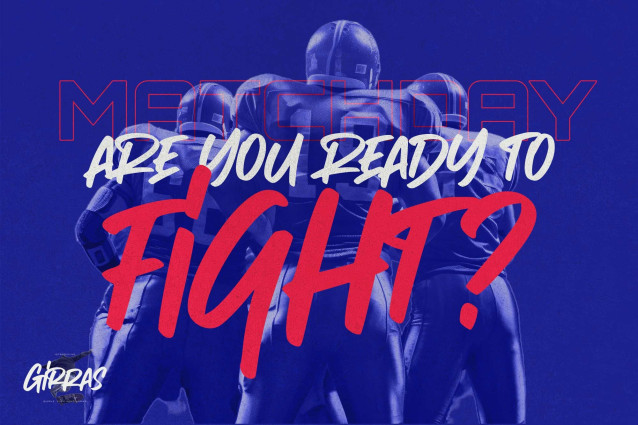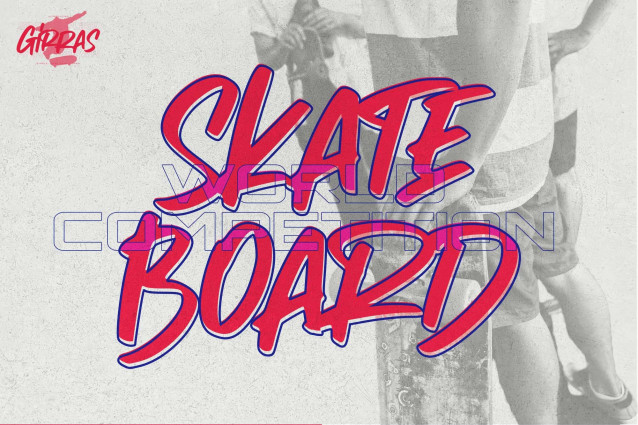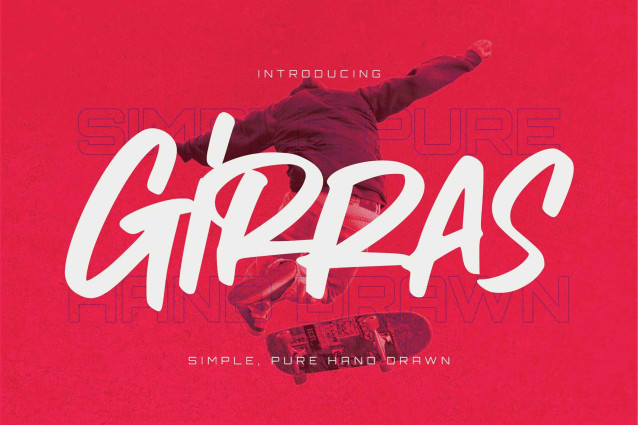
Girras – Simple Pure Hand Drawn Font
Girras This is a Simple Pure Hand Drawn, this is a hand drawn brush font with more alternates and simple style, this font is perfect for making a strong statement in your designs.
Perfect for:
• Logos
• Posters
• Product packaging
• Branding
• Advertisements
• Invitations
• Stationery
• Wedding designs
• Labels
• Photography watermarks
• Quotes
• and more